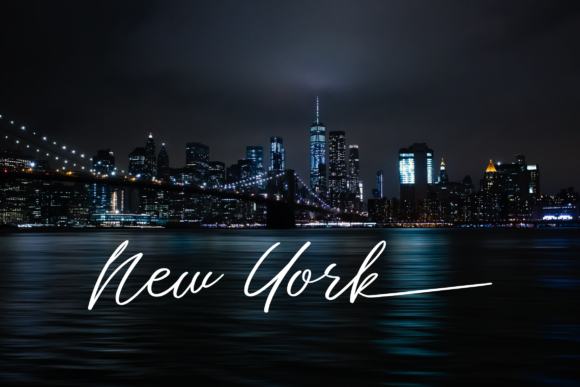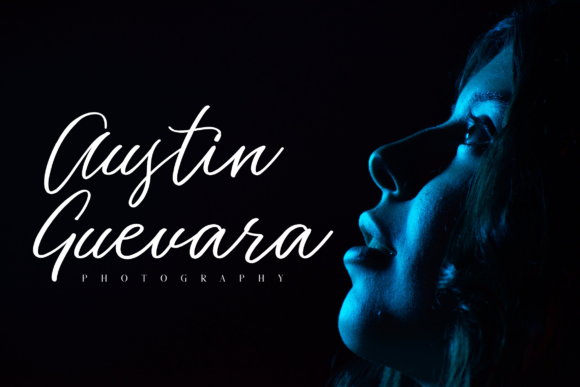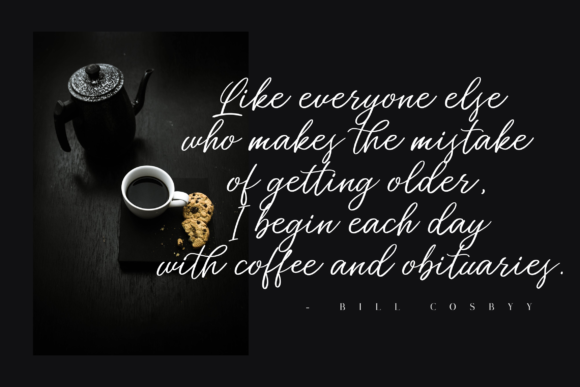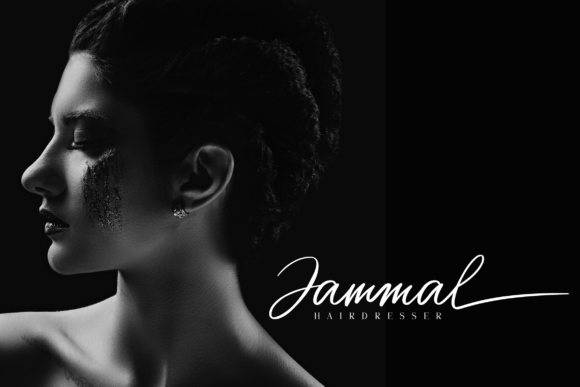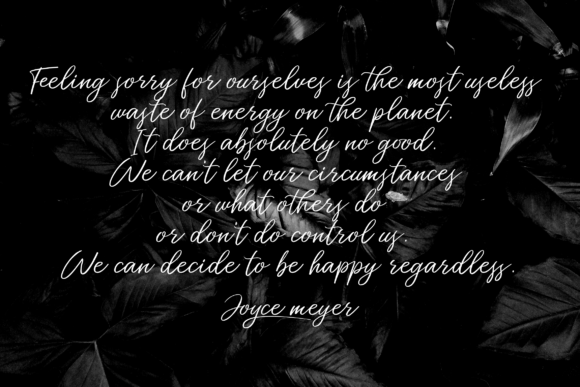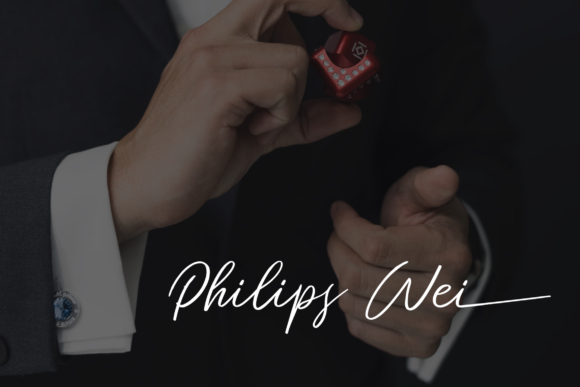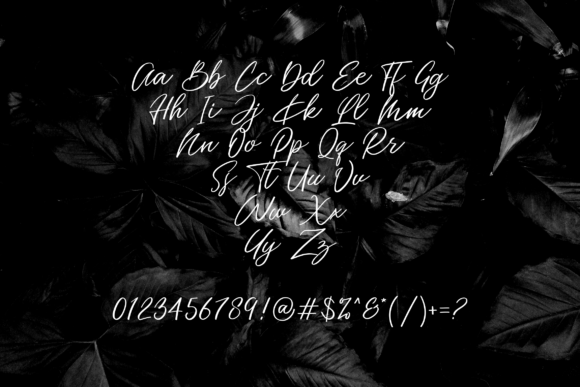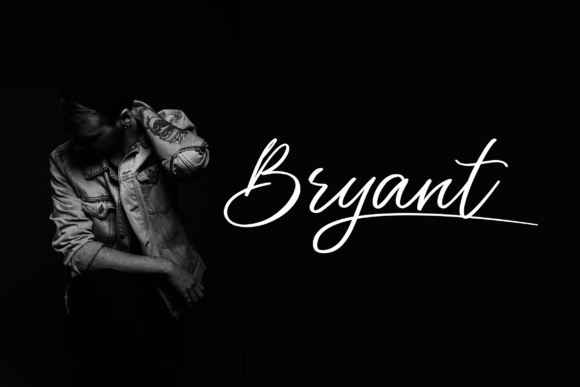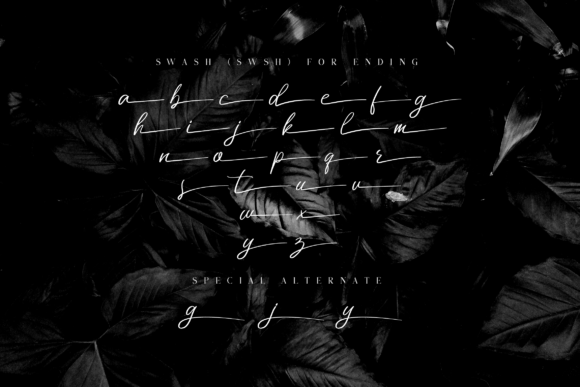
HomeScript FontsMiss Catlyne Font Script Fonts Miss Catlyne Font FacebookXPinterestWhatsApp Miss Catlyne Font Poster 2 Miss Catlyne Font Poster 3 Miss Catlyne Font Poster 4 Miss Catlyne Font Poster 5 Miss Catlyne Font Poster 6 Miss Catlyne Font Poster 7 Miss Catlyne Font Poster 8 Miss Catlyne Font Poster 9 Miss Catlyne Font Poster 10 About Miss Catlyne Font Miss Catlyne is a sweet and friendly handwritten font with a cool vibe. Get inspired by its unique style! DOWNLOAD ON CREATIVE FABRICAThis font is sold and delivered by Creative Fabrica. Font Canyon may earn a commission if you buy through this link. People also explored Sweet Montana Font Wonderline Font Ramellia Butterfly Font Hopeless Font Megidana Font Christmas Wonderful Font Raytone Font Bisqis Font Child Dream Font 328 0 TagsMiss Catlyne Font Previous articleGeishela Script FontNext articleThe Falcon Font LEAVE A REPLY Cancel reply Comment: Please enter your comment! Name:* Please enter your name here Email:* You have entered an incorrect email address! Please enter your email address here Website: Save my name, email, and website in this browser for the next time I comment. Personal Use Free Homelands Personal Use Free Read more about this font Po Beef Personal Use Free Read more about this font Zeshane Personal Use Free Read more about this font Batik Classic Personal Use Free Read more about this font BLOG Fonts That Capture the Spirit of New York City New York City is more than just a place—it’s an experience, a rhythm, a visual language... Free vs Paid Fonts: Why Investing in Premium Fonts Is Worth It Top 10 Handwritten Fonts That Elevate Your Designs Transform Your Website: Elevate Your Typography with 7 Best Web Font Generators